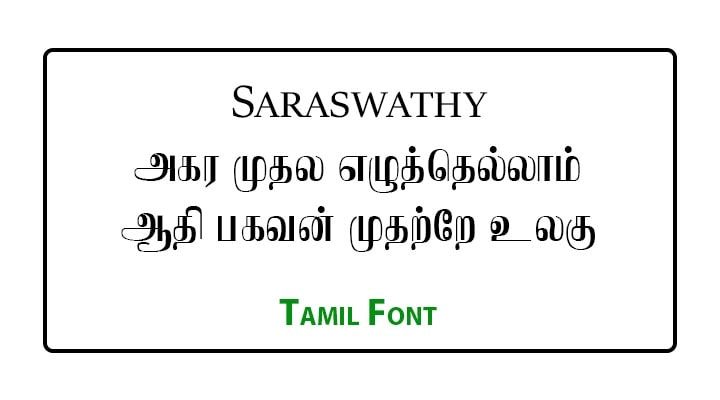
Saraswathy Tamil Font Free Download. Saraswathy is one of the Tamil Regular Font. Specially used in publications. Here you can download Font and Keyboard Layout for Free. This font is widely used by Tamil Nadu and Sri Lankan Tamil Peoples. The following font was design and generated by by Fontograpgher 3.5.
Saraswathy Tamil Font Preview